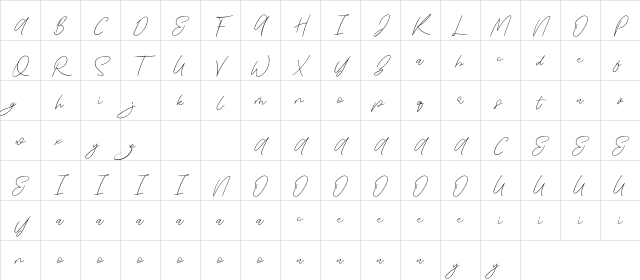
Zephira Demo Regular Free Font
Zephira Demo Regular
Foundry: Edric Studio
Designer: Fajar Saepul Rohman & Suci Anita
Design Context for Zephira Demo
Zephira Demo is a composed and adaptable typeface that performs quietly and consistently across a wide range of design contexts.